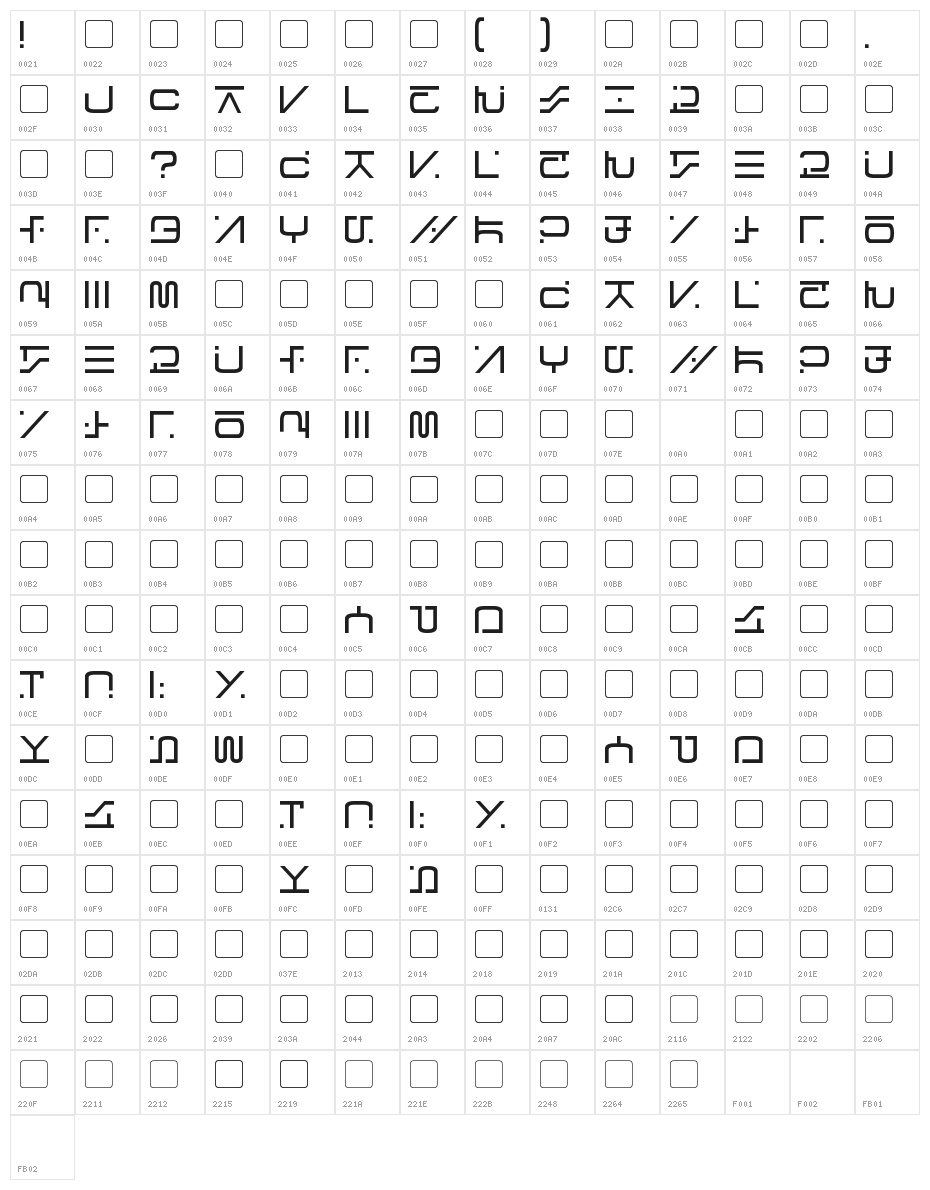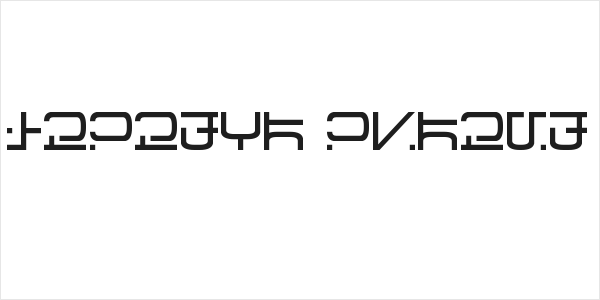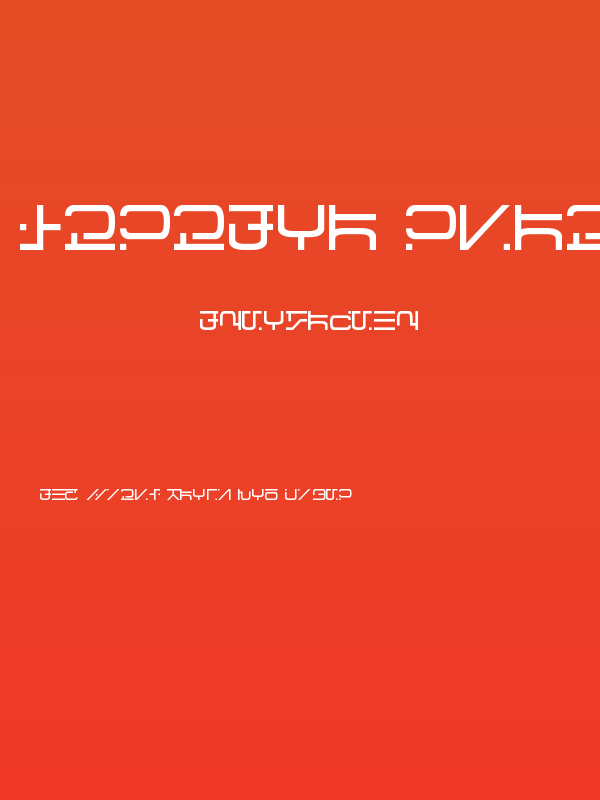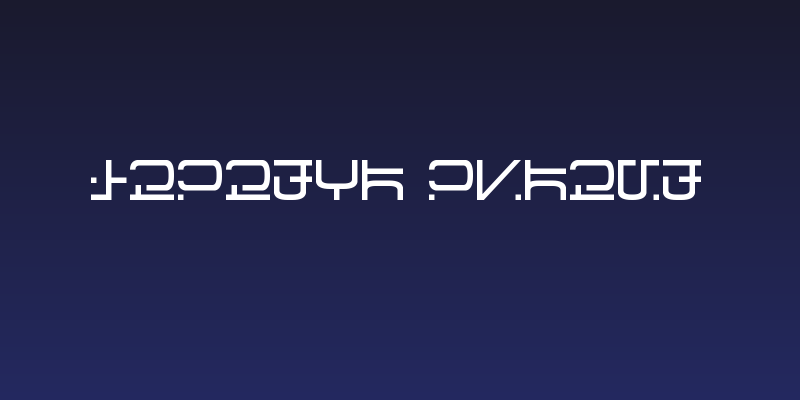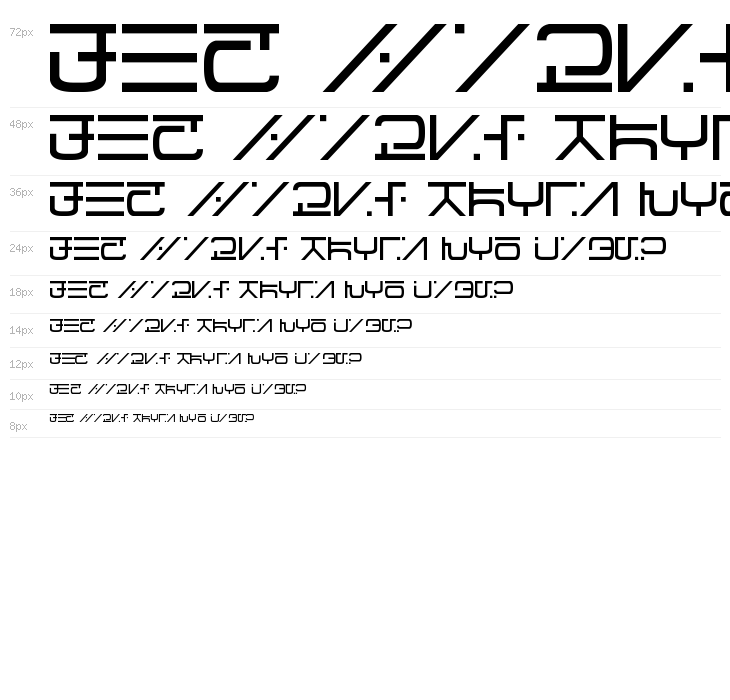
Visitor Script Font
Visitor Script Description
This font features a futuristic and geometric design with a distinct digital aesthetic. The characters are composed of straight lines and sharp angles, creating a mechanical and technical appearance. The uppercase and lowercase letters share a similar structure, emphasizing uniformity and consistency. The numbers and special characters follow the same design principles, maintaining the font's cohesive look. The overall style is reminiscent of digital displays or sci-fi themes, making it suitable for projects that require a modern and technological feel.
| Overall Style | Futuristic |
| Use Case | Logos, Headlines, Digital Interfaces |
| Proposed Projects | Ideal for technology branding, sci-fi movie posters, video game interfaces, and digital art projects. |